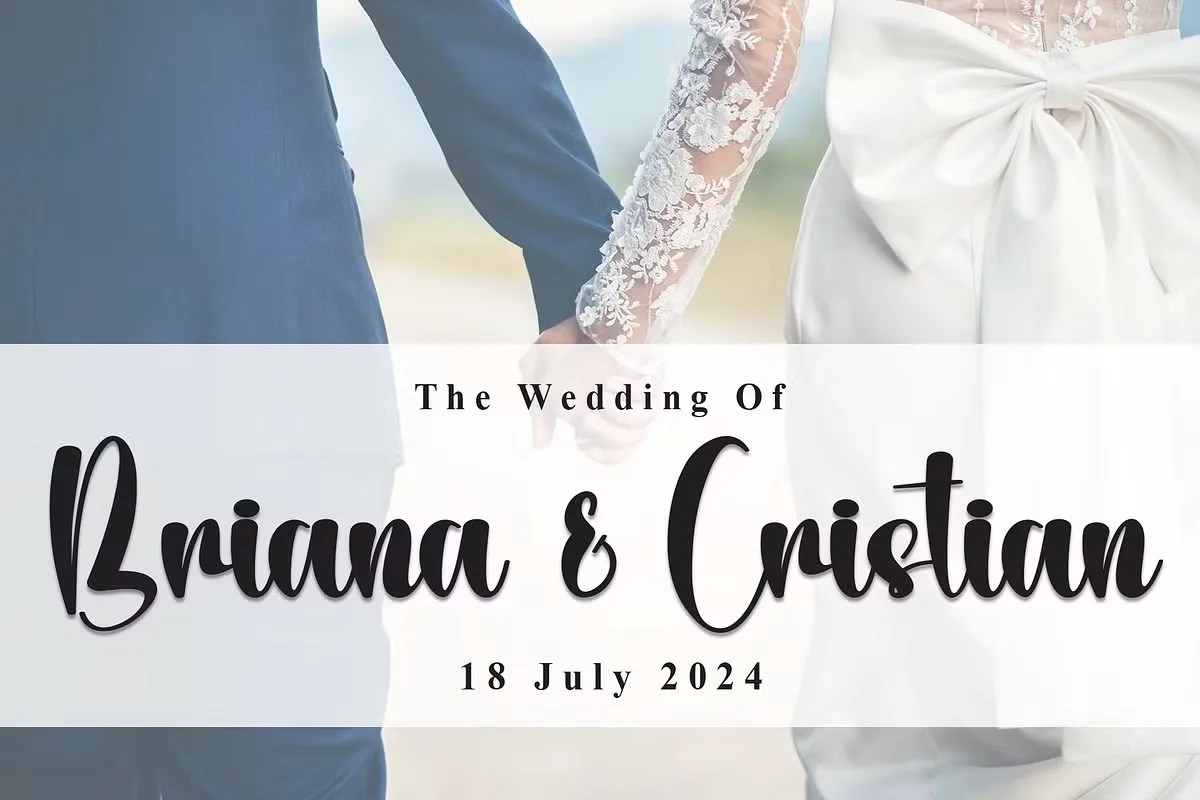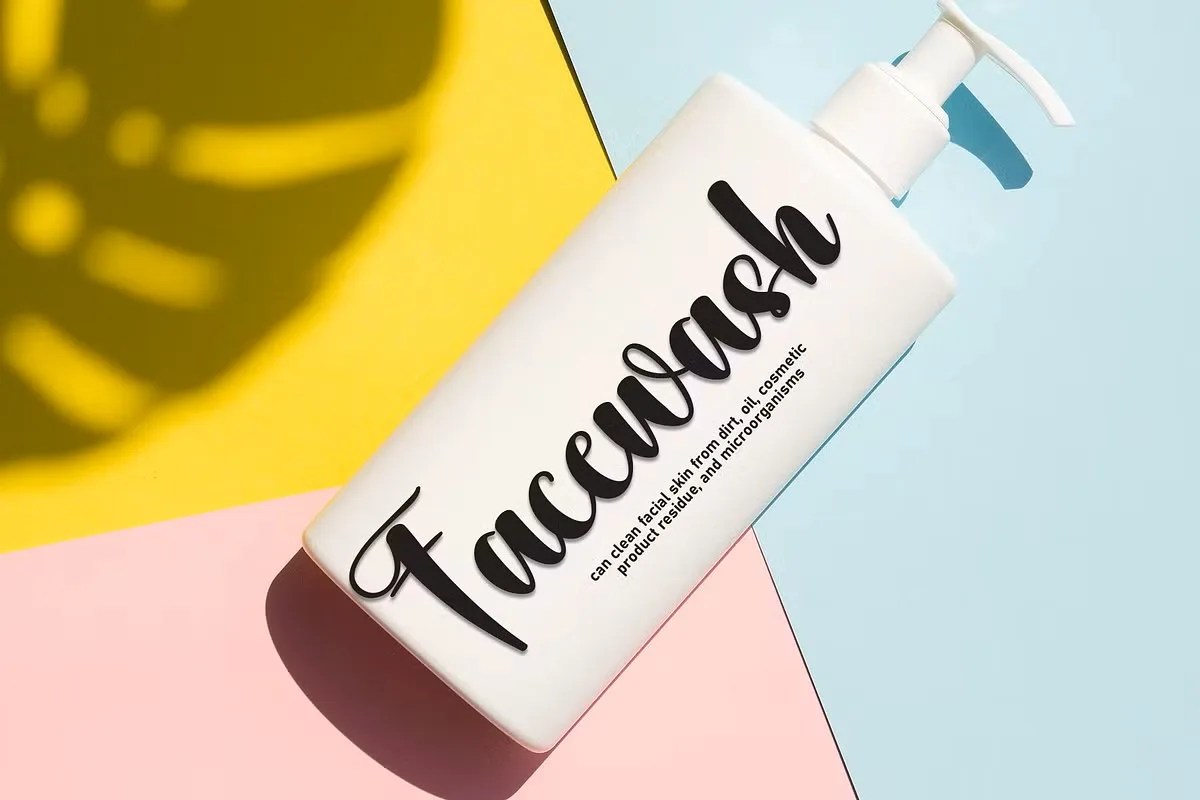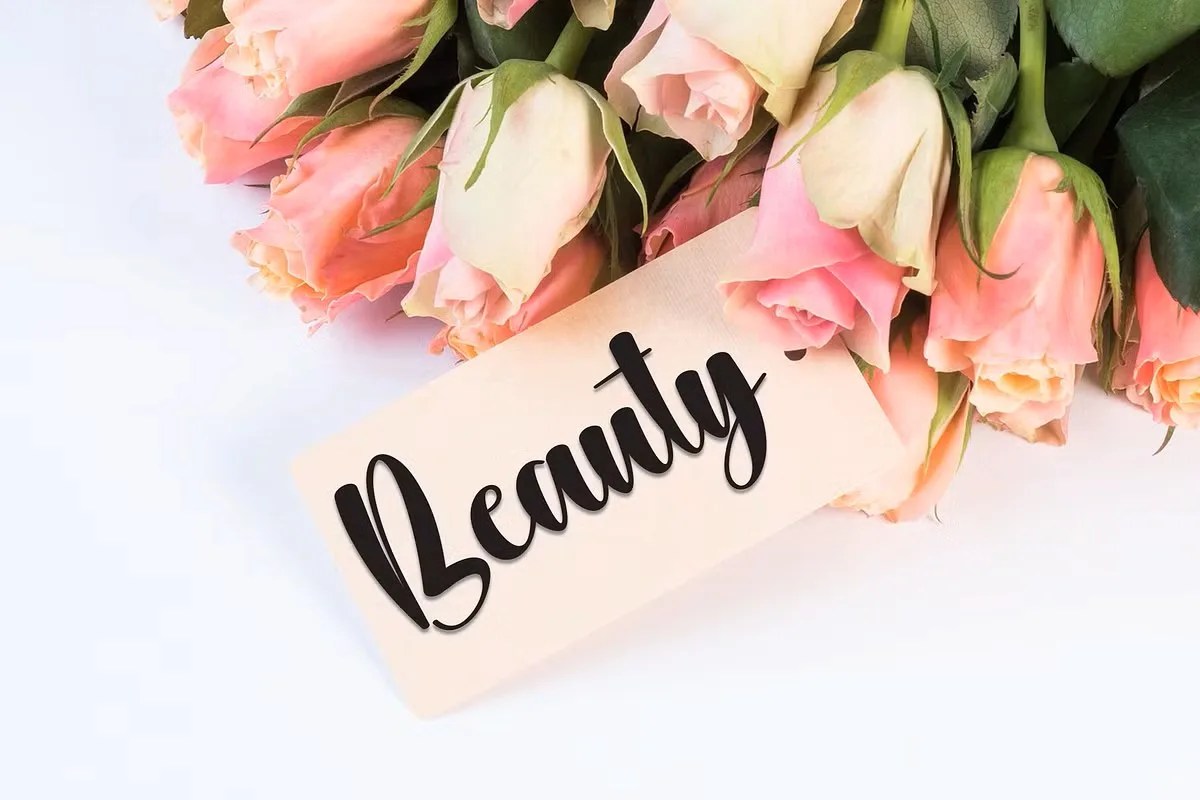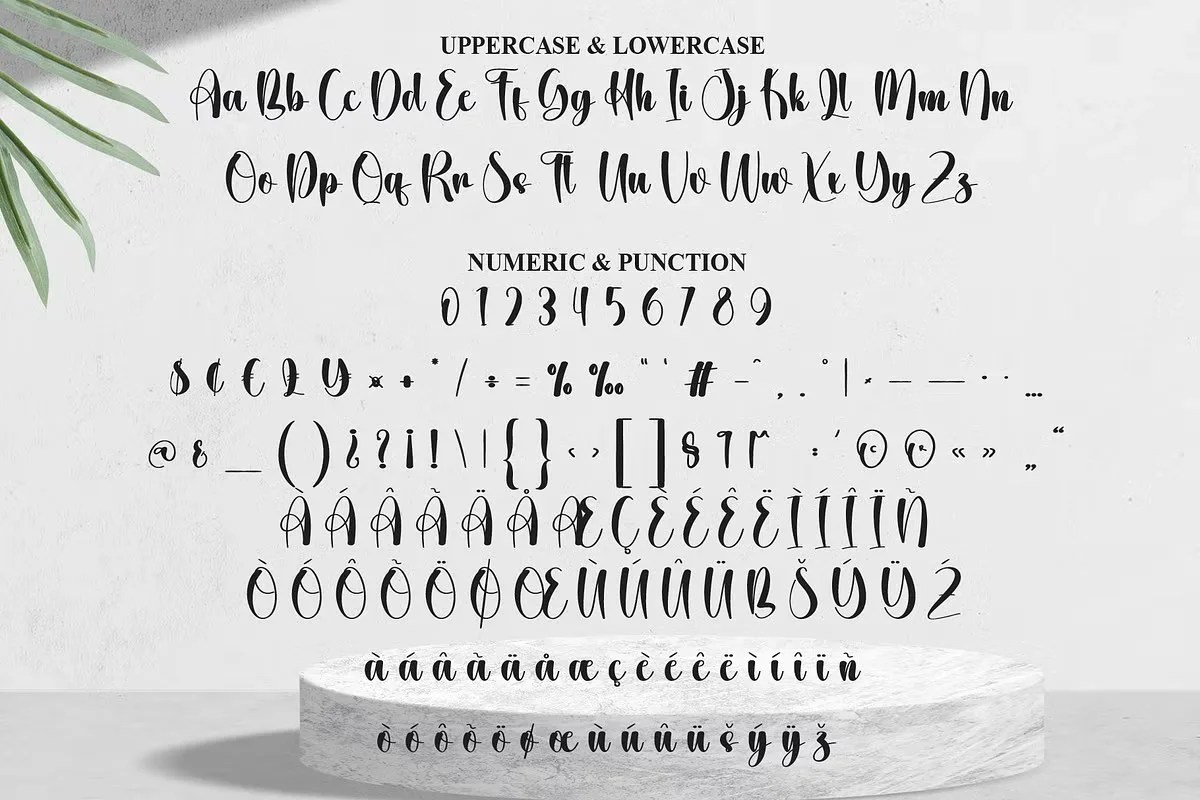
Getback by Scratchones. This is a high-energy retro script font that features a hand-brushed texture and a dynamic, flowing baseline. The font practically jumps off the page with attitude and a palpable sense of movement. Scratchones created Getback for designs that need a bold, authentic, and nostalgic voice. It’s a powerful tool for making a memorable statement.
This font is a powerful tool for projects with a bold personality. Specifically, its style is perfect for nostalgic, 80s-themed designs. Think of classic movie titles, album covers, or event posters. Furthermore, this retro script font is an excellent choice for apparel branding, looking great on t-shirts, hats, and sweatshirts. It gives any product an instant street-style edge. Use it for social media graphics that need to stop the scroll with a powerful burst of energy.
• High-energy retro script style
• Features a realistic hand-brushed texture
• Ideal for logos, apparel, and poster design
• Adds a bold, nostalgic, and energetic feel
Getback